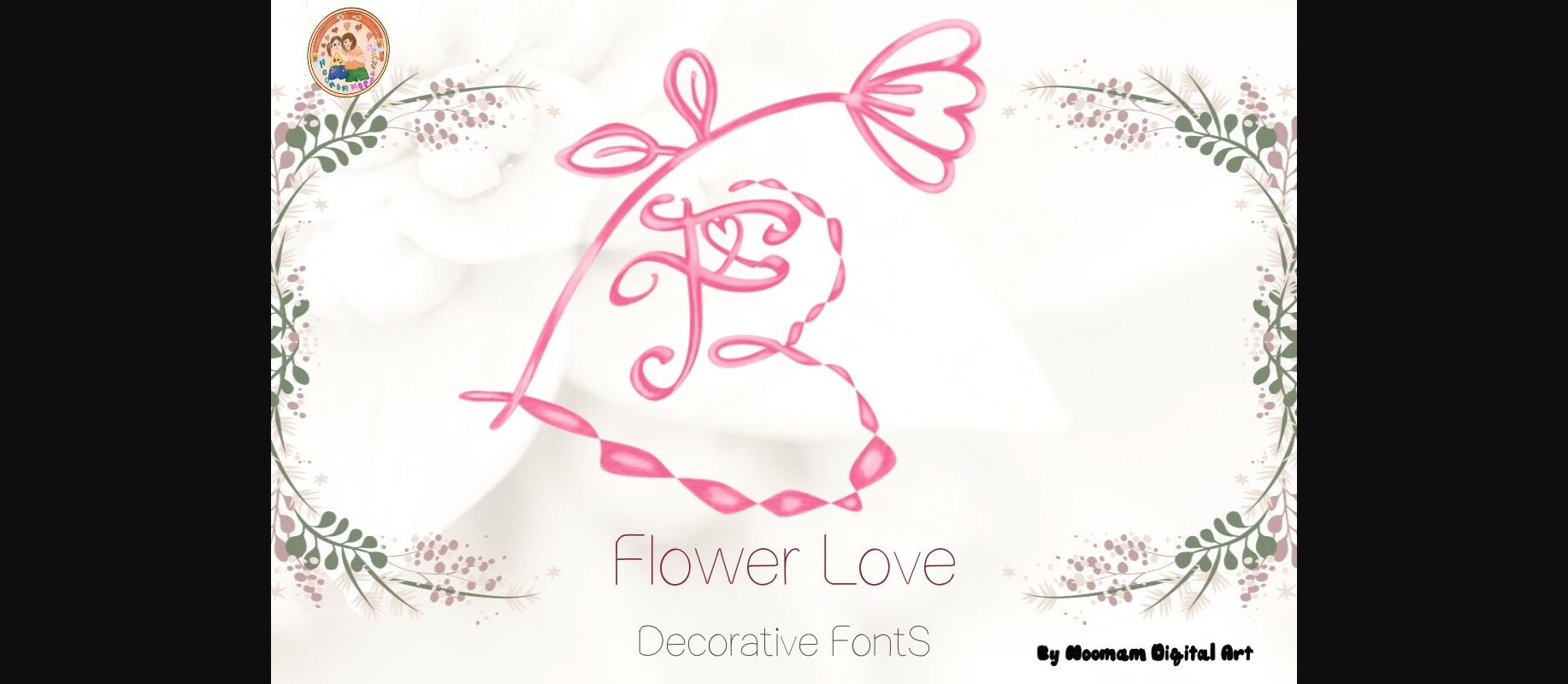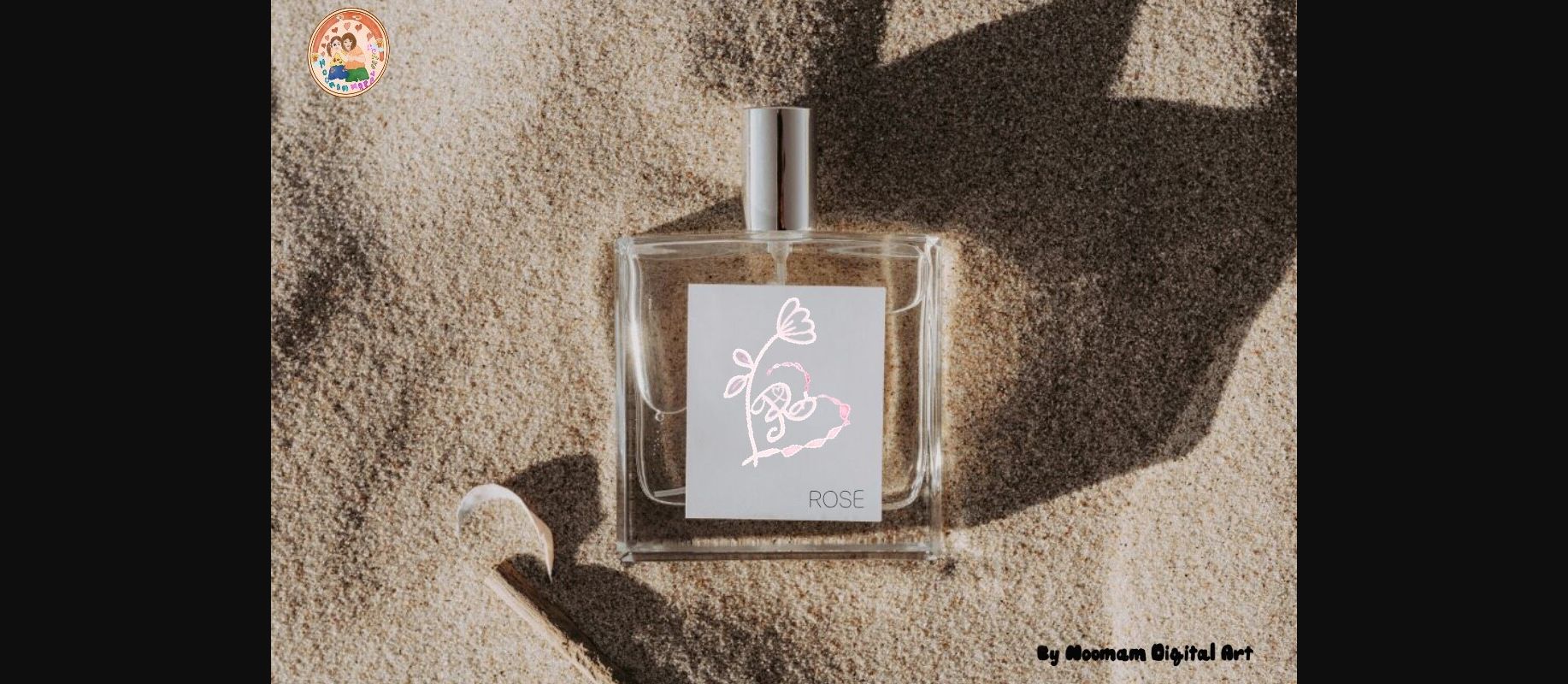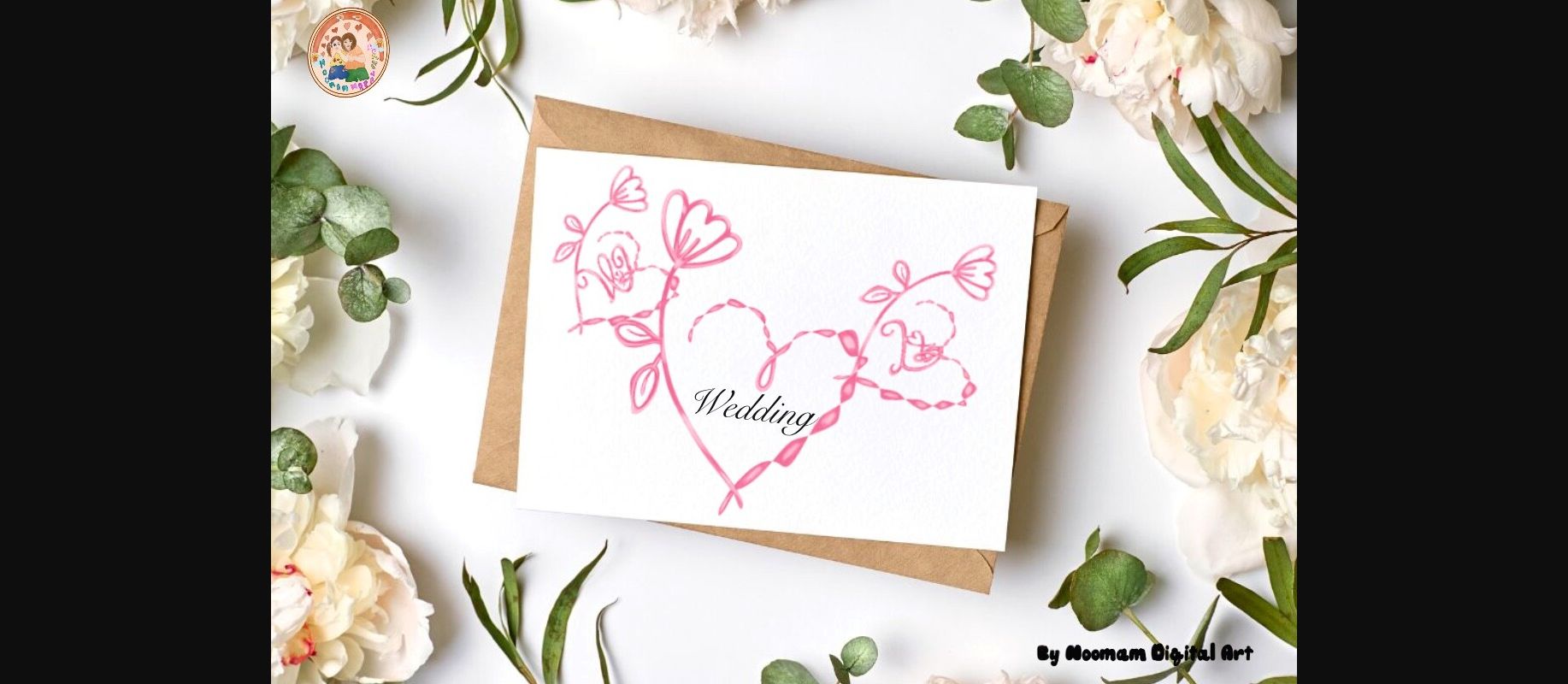
About Flower Love Font
Flower Love is a Beautiful decorative font, with Heart lovely ornaments. Fall in love with its authentic feel and use it to create gorgeous wedding invitations, beautiful stationary art, eye-catching social media posts, and cute greeting cards.